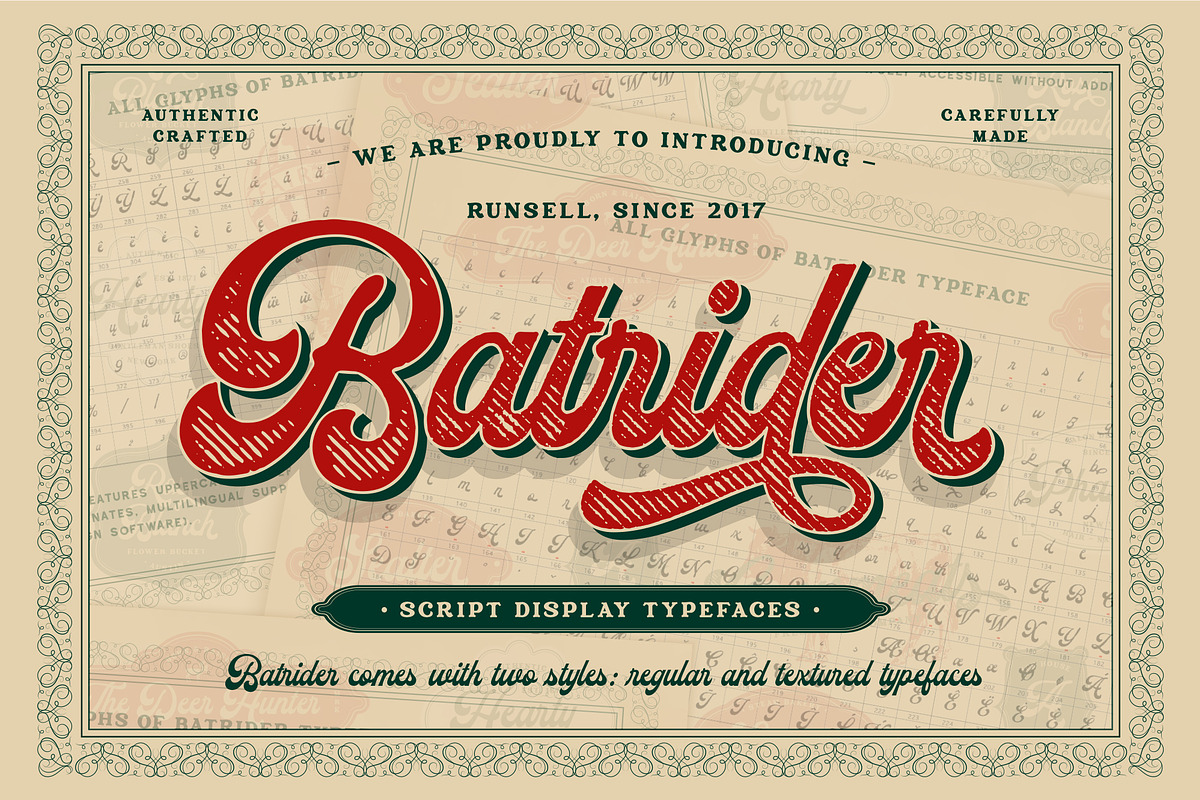
Batrider 2 Font Styles
Batrider Font is perfect for superhero comic book titles, dark knight movie posters, gothic adventure game logos, mysterious vigilante branding, urban action campaigns, nocturnal event materials, shadowy thriller book covers, and brooding entertainment graphics.
This font is exciting because it channels dark heroic power with bold letterforms that capture the mysterious strength and unwavering justice of caped crusaders protecting cities from the shadows. Batrider Font brings vigilante sophistication to designs through its dramatic structure and shadowy styling that feels like typography forged in the darkness and tempered by the pursuit of justice. The font's heroic character makes it perfect for brands that embrace the darker side of heroism and want to communicate strength, mystery, and the kind of protective power that emerges from the night to defend the innocent.
The Batrider Font family includes Regular, Bold, Light, Shadow, Dark, and Heroic variants, each designed to capture different aspects of vigilante mystique while maintaining the font's characteristic dark appeal and heroic authenticity. The character set features dramatic details that enhance the font's connection to nocturnal heroes and urban guardians.
Whether you're creating branding for entertainment franchises, designing materials for action-themed events, or developing content that needs to project dark heroic power, Batrider Font Free Download delivers the mysterious typography that calls audiences to embrace their inner hero and stand against injustice. This remarkable typeface transforms text into declarations of vigilante justice that resonate with the same unwavering determination and protective instinct found in the world's greatest dark heroes, ensuring your message communicates the fearless courage and moral conviction that drives those who choose to protect others from the shadows.